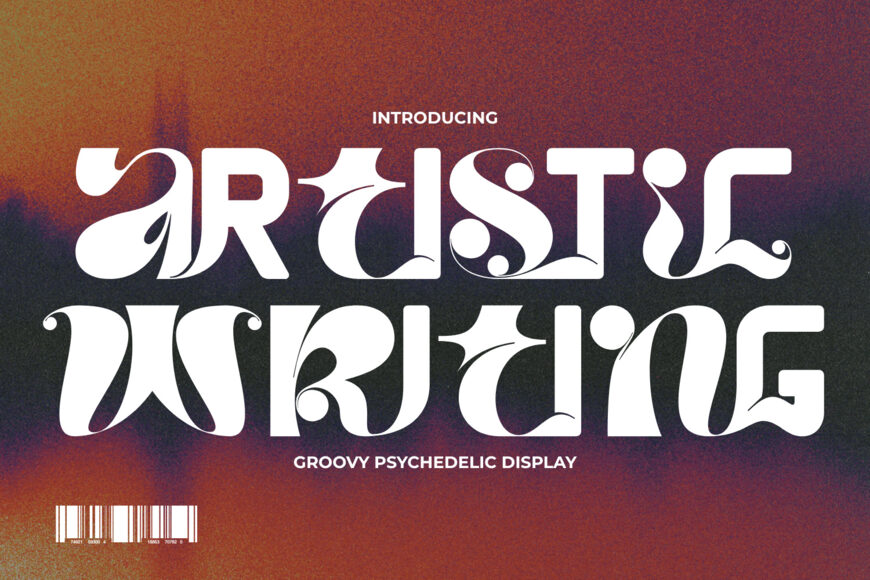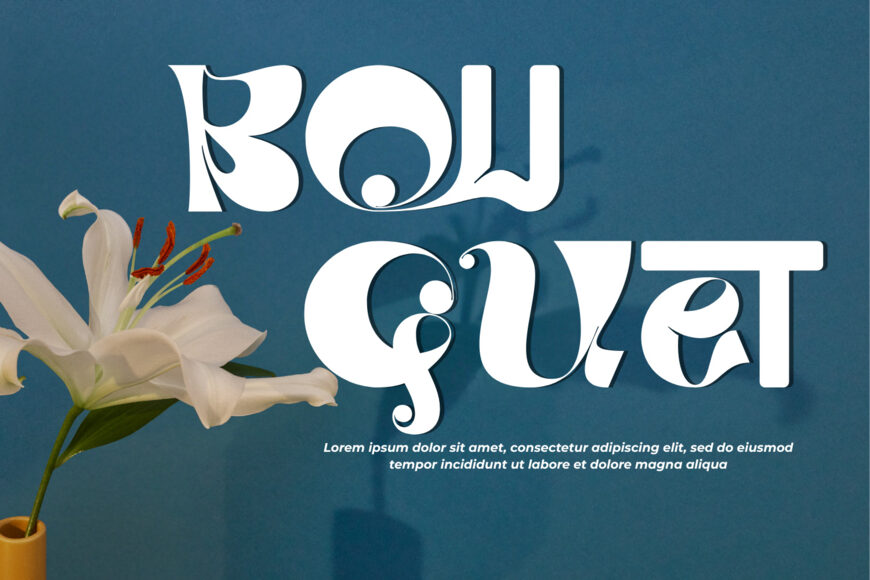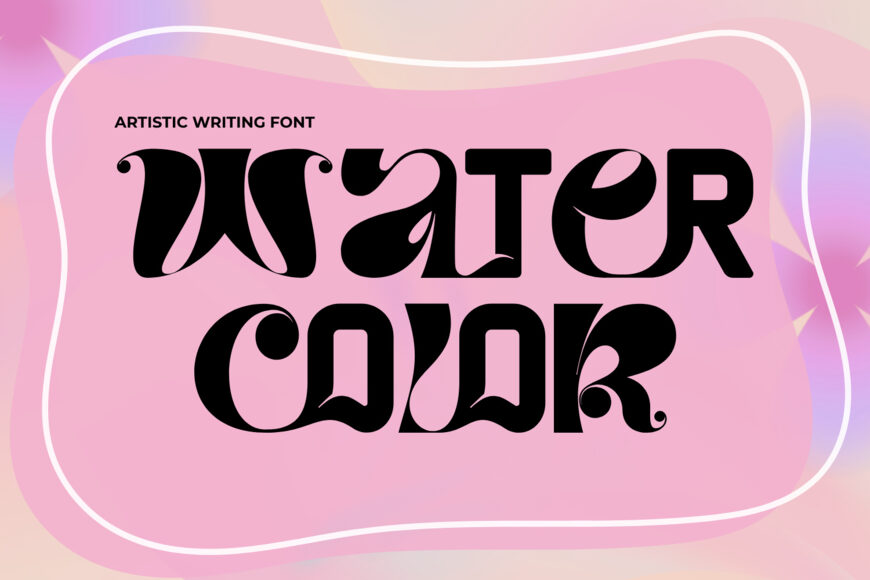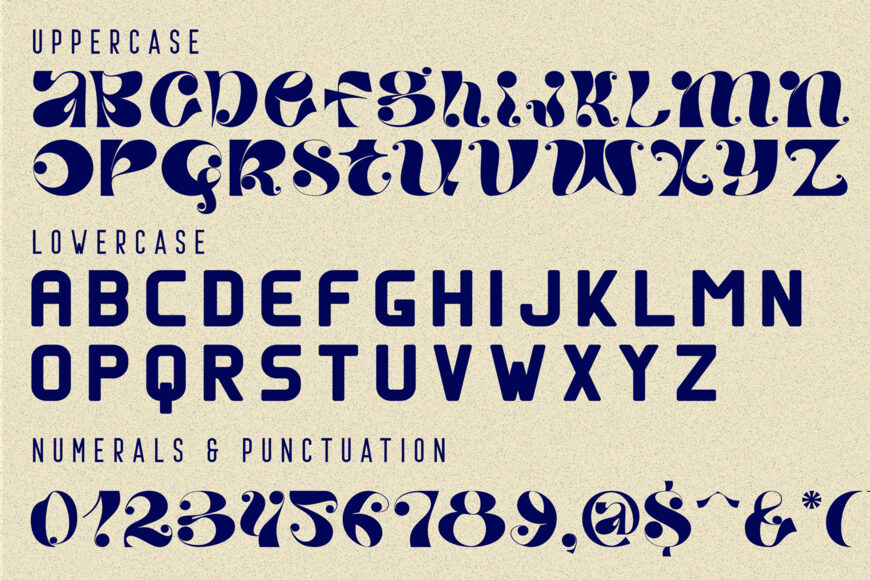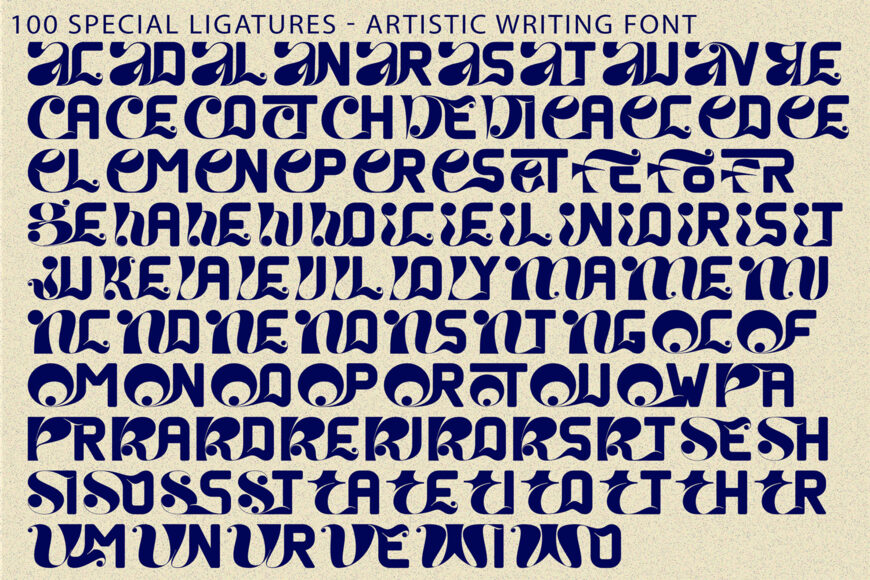
Artistic Writing Font
Artistic Writing is a liquid display font that seamlessly blends 1970s psychedelic aesthetics with modern acid graphics and Art Nouveau elegance. Defined by its ultra-bold fluid curves, graceful ball terminals, and embedded geometric dot accents, this typeface brings an irresistible retro-chic energy to your visual layouts.
Designed for high-impact headlines and custom typographic compositions, Artistic Writing features striking four-pointed star cutouts and sweeping organic swashes that transform plain text into bespoke artwork. It is the ultimate display choice for psychedelic album covers, trendy streetwear graphics, artisanal beverage packaging, creative event posters, and edgy branding identities.